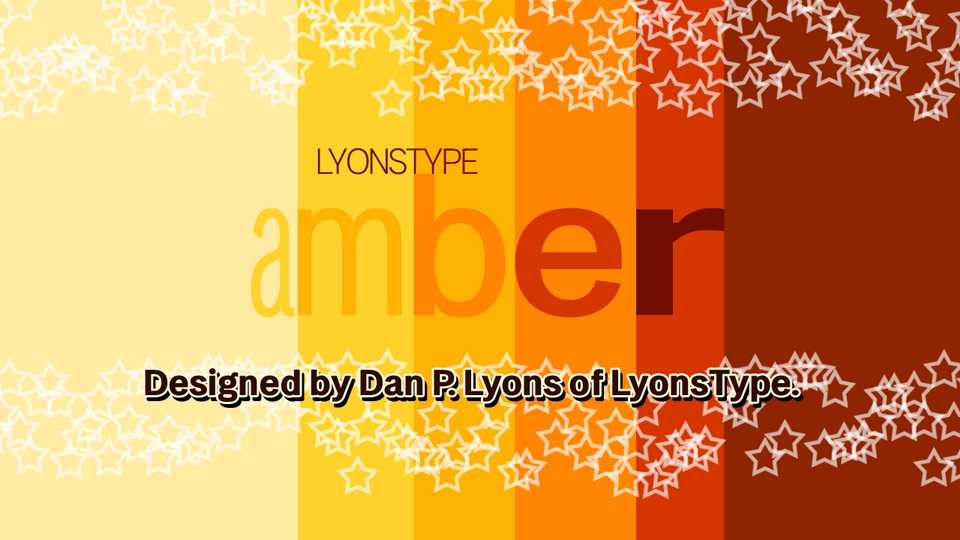
Download LT Amber typeface, a grotesk font family with 25 styles. LT Amber is all you need to center around the imaginable inspiration of an amber gemstone.